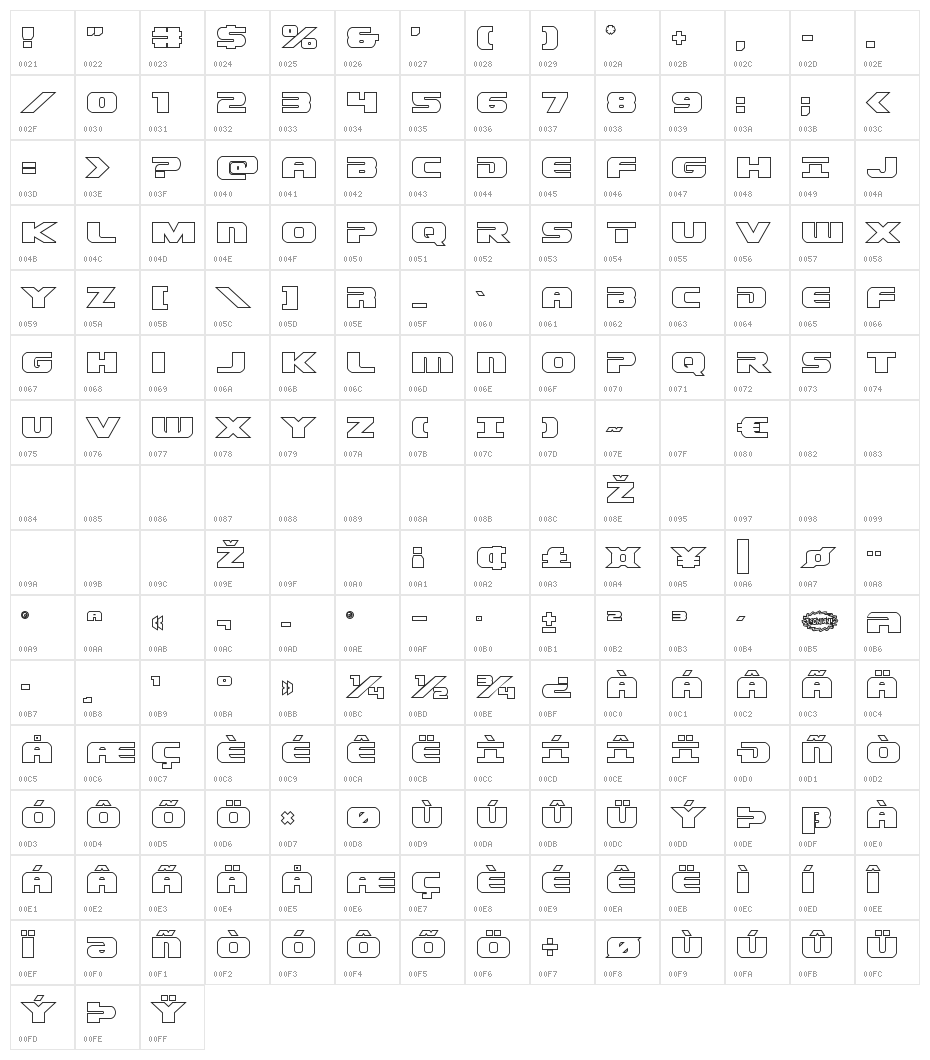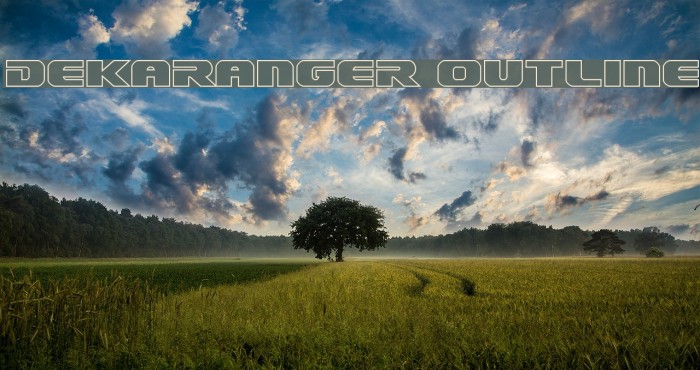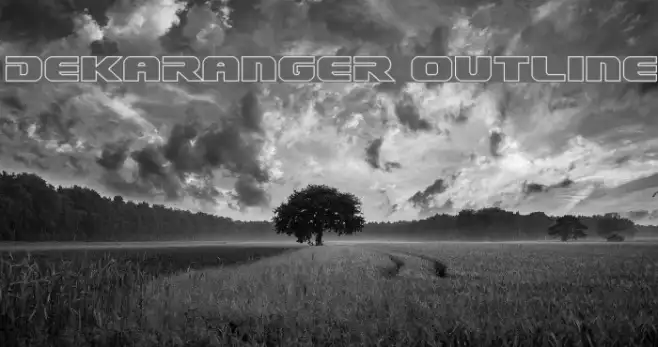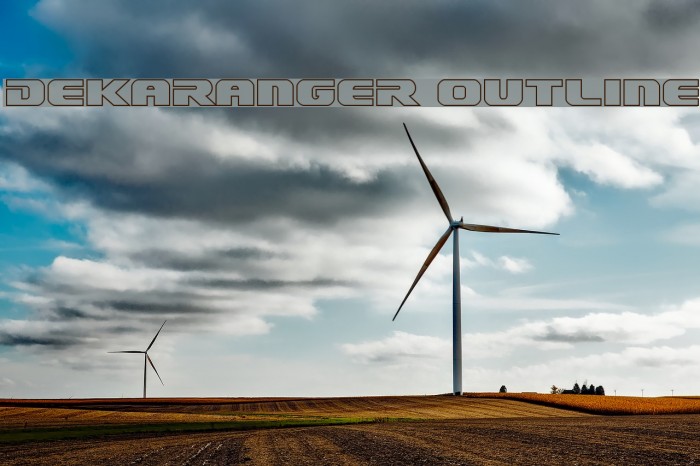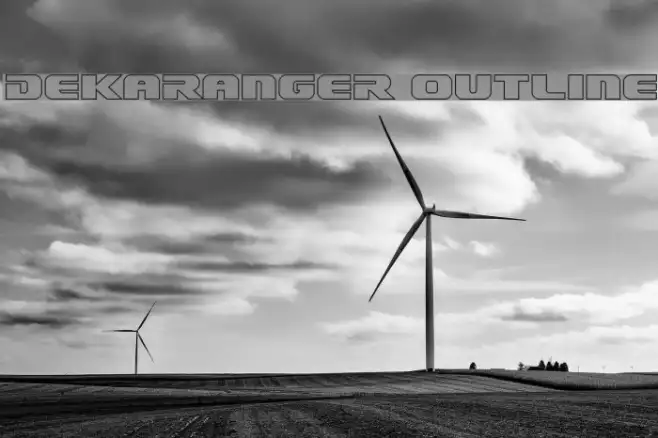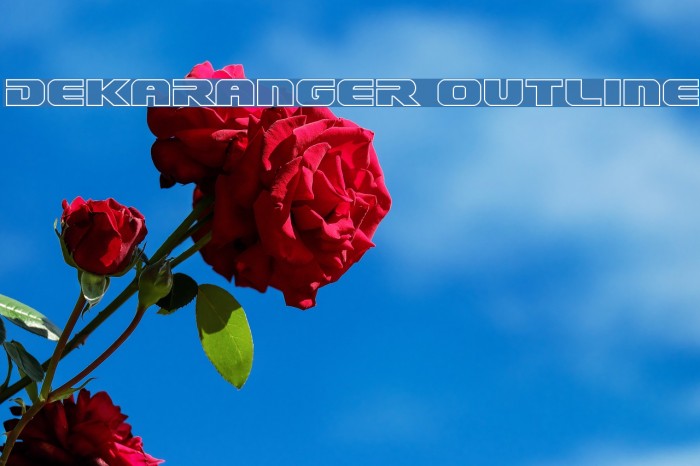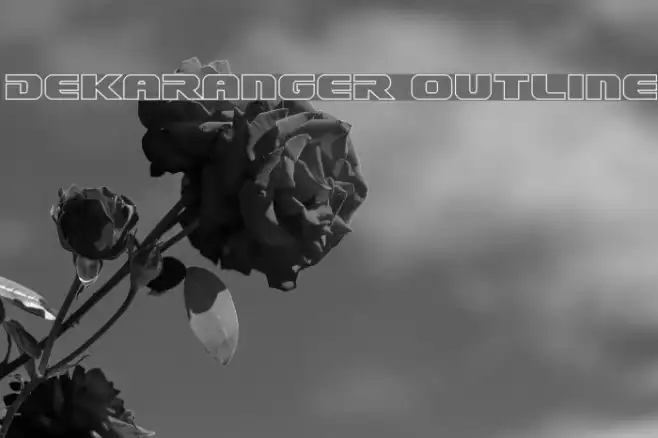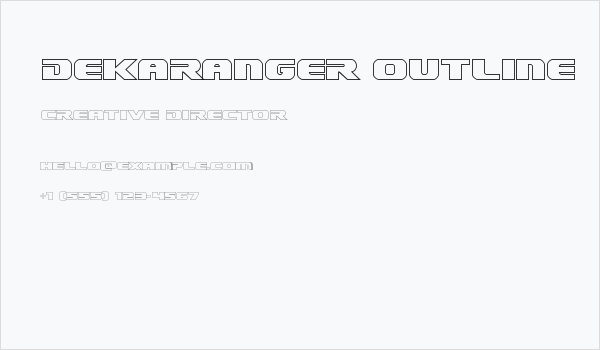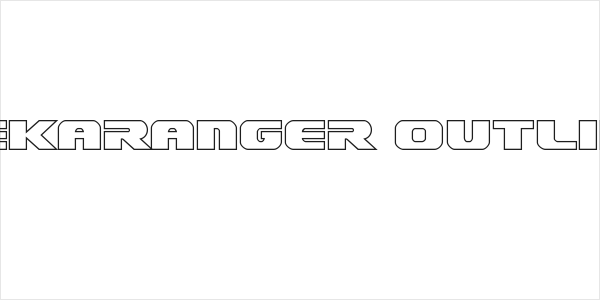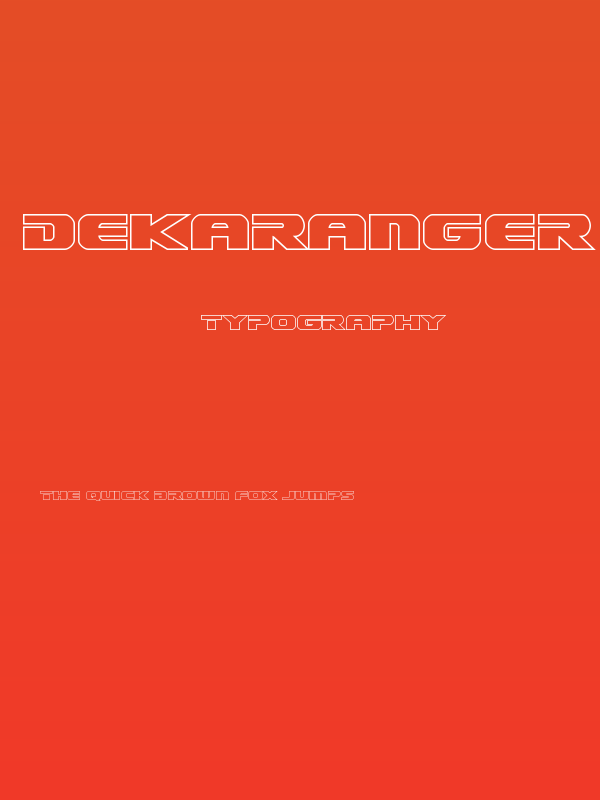
Dekaranger Outline Font
Dekaranger Outline Description
This font features a bold, geometric outline style that gives it a futuristic and dynamic appearance. The characters are constructed with clean, angular lines and sharp edges, creating a sense of movement and energy. The uppercase letters are particularly striking, with a uniform height and width that contribute to a cohesive look. The numerals and special characters maintain the same bold outline, ensuring consistency across all glyphs. This font's design is reminiscent of sci-fi themes and digital aesthetics, making it ideal for projects that require a modern and edgy feel.
| Overall Style | Futuristic, Modern |
| Proposed Projects | Ideal for sci-fi themed designs, video game titles, tech branding, and futuristic posters. |